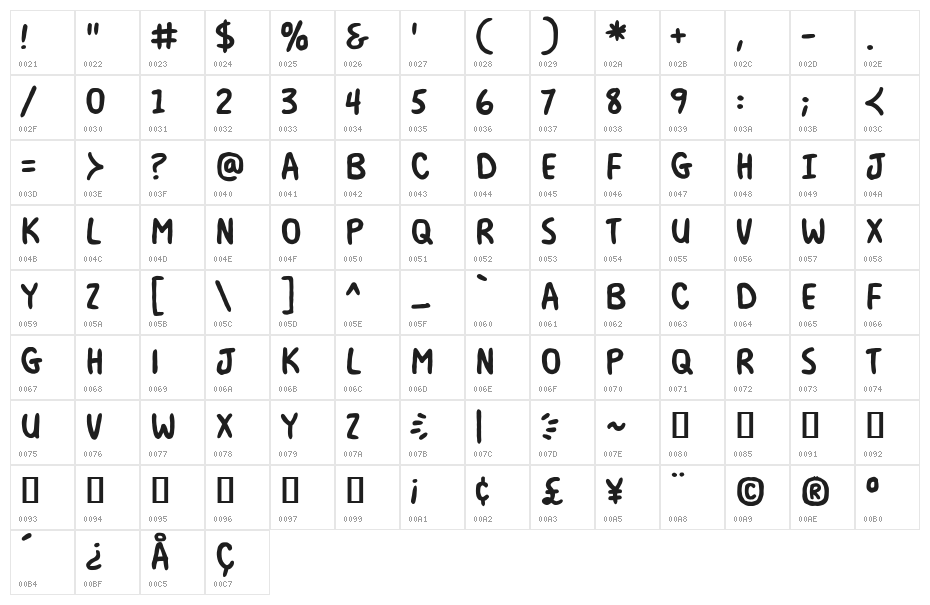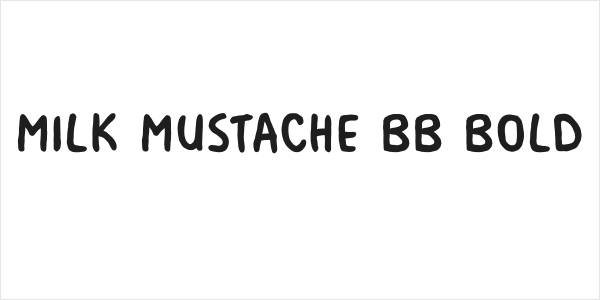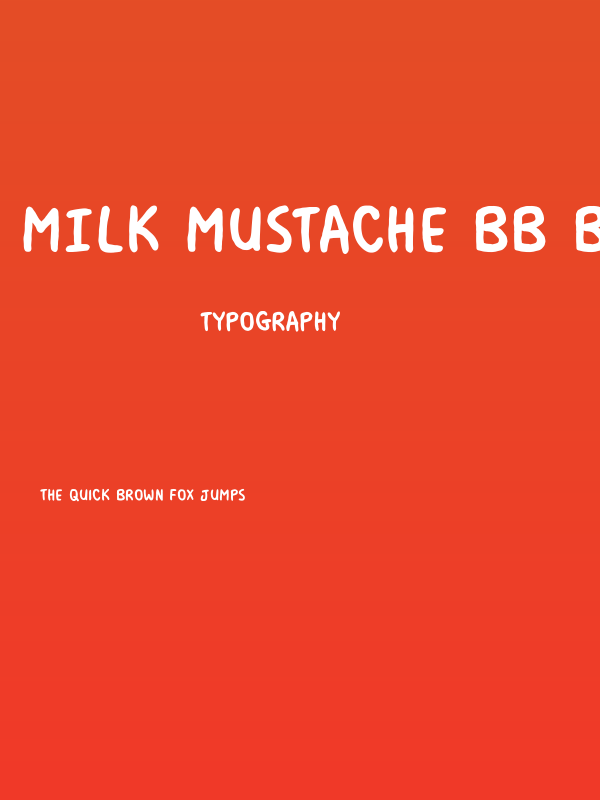
Milk Mustache BB Bold Font
Milk Mustache BB Bold Description
This playful and bold font features a handwritten style with rounded edges and a casual, friendly appearance. The characters are slightly irregular, giving it a whimsical and approachable feel. The uppercase and lowercase letters maintain a consistent thickness, contributing to its boldness. The numbers and special characters follow the same playful design, making it suitable for projects that require a fun and informal touch. The font's overall appearance is reminiscent of hand-drawn lettering, making it ideal for creative and lighthearted applications.
Overall StylePlayful
Proposed ProjectsIdeal for children's books, playful branding, casual invitations, and creative posters.